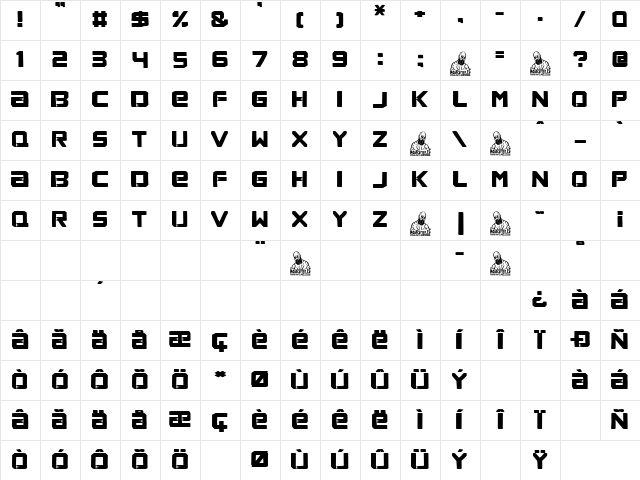
Ultra Force Big Regular Free Font
Ultra Force Big Regular
Design Context for Ultra Force Big
Ultra Force Big brings high-energy athletic personality to the page - its confident, muscular forms are built for impact.
Pro Tip: Use Ultra Force Big in all-caps headlines where its athletic energy can fully express itself. Pair with a solid, simple sans for supporting text.